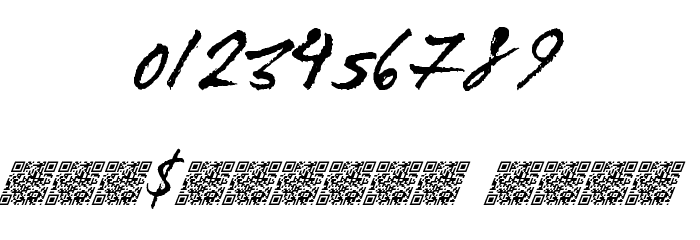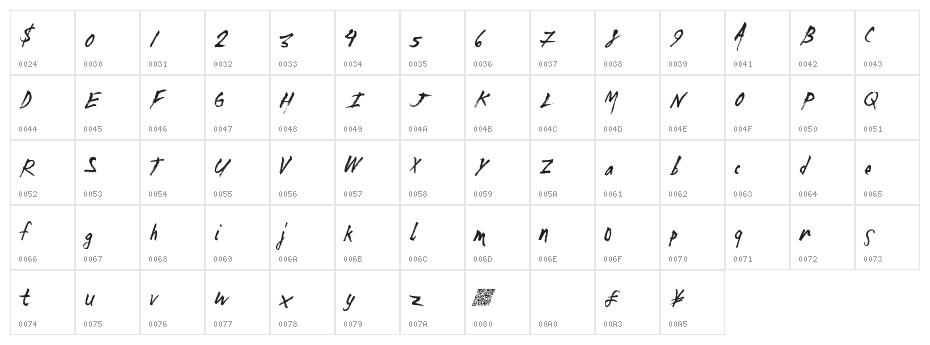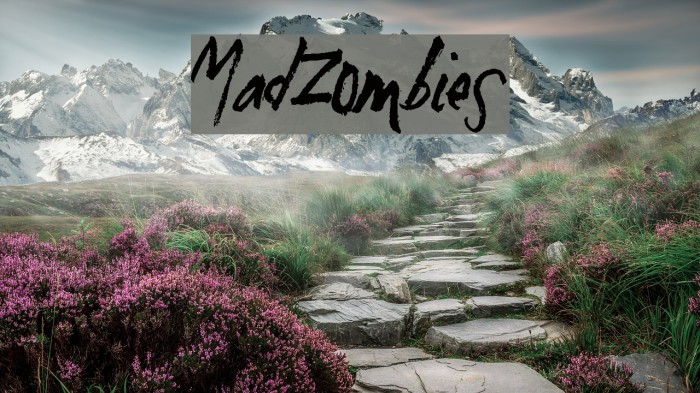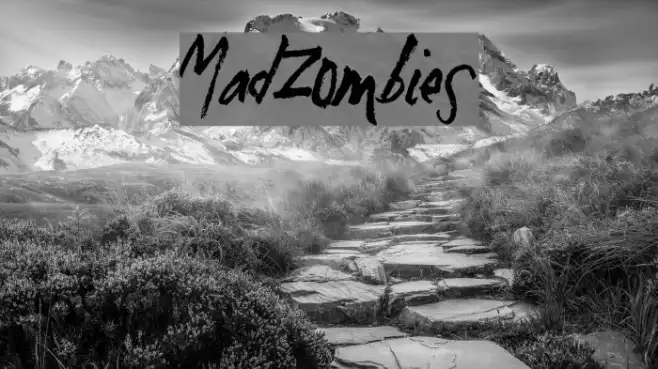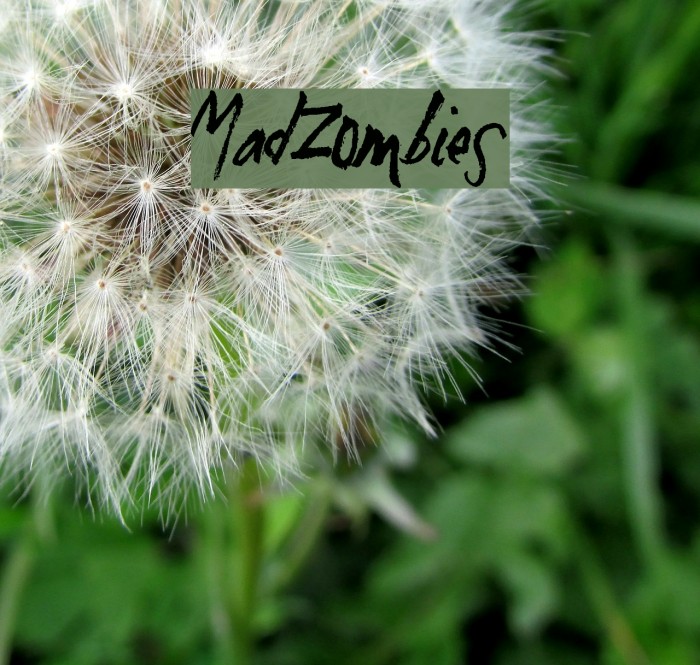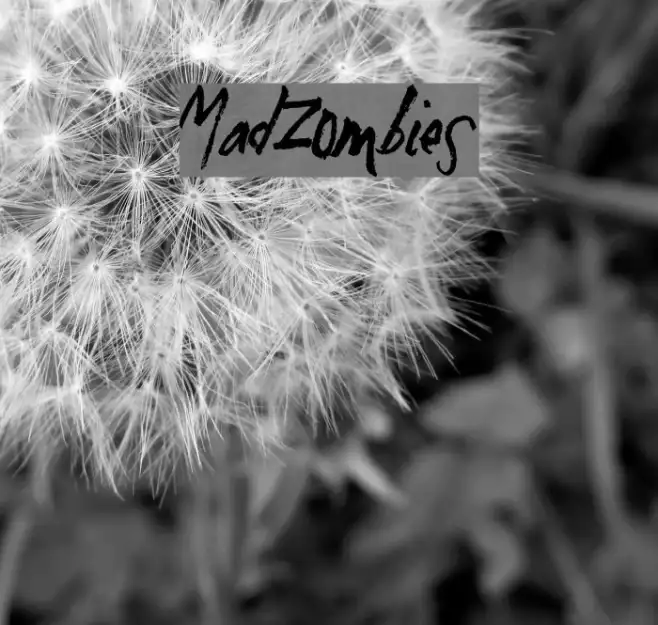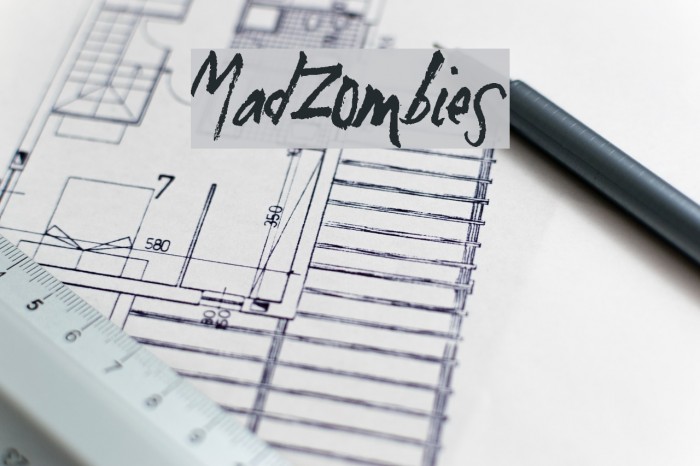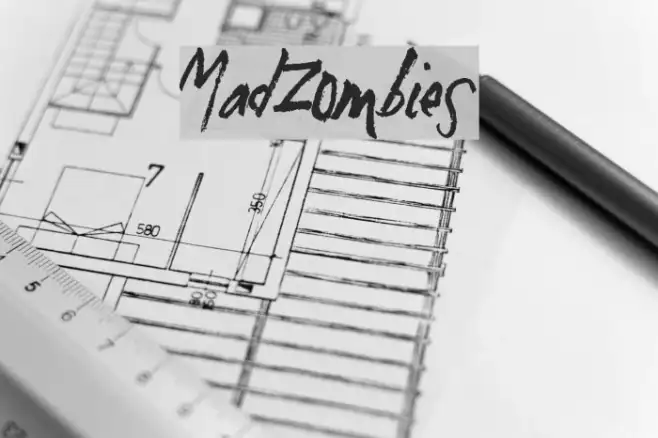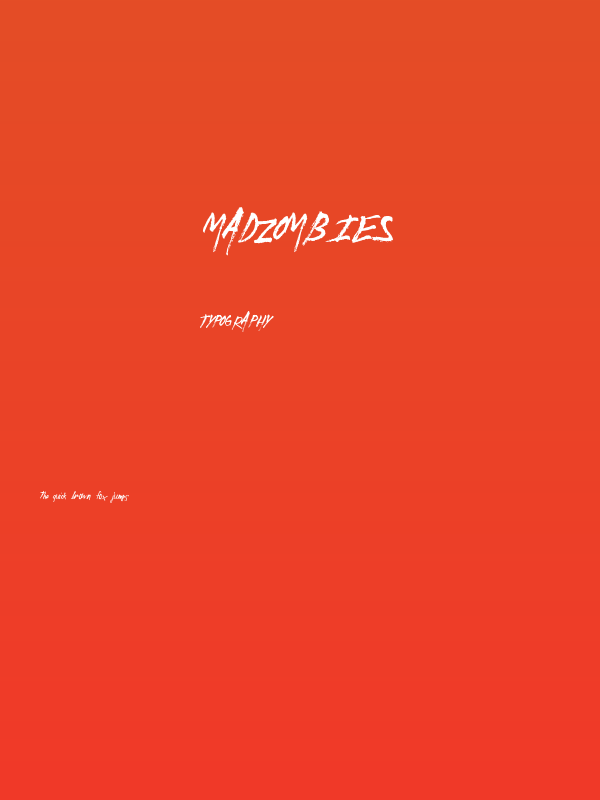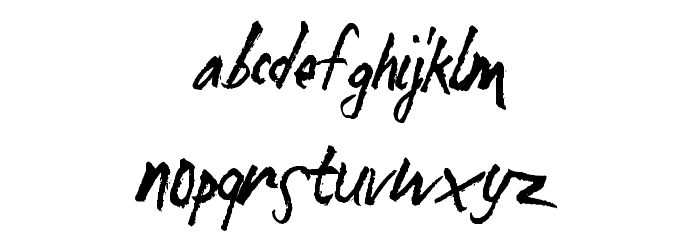
MadZombies Font
MadZombies Description
This font exudes a raw, energetic vibe with its brush-like strokes and irregular edges, giving it a hand-drawn appearance. The letters are bold and dynamic, with varying thickness that adds a sense of movement and intensity. The uppercase and lowercase letters maintain a consistent style, while the numbers and special characters follow suit with the same rugged aesthetic. This font's unique style makes it stand out, perfect for projects that require a touch of edginess and creativity.